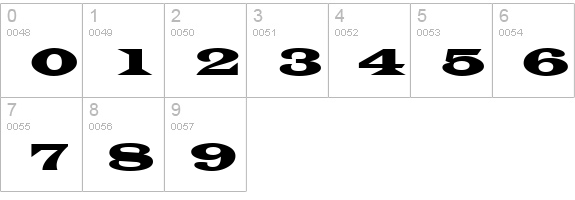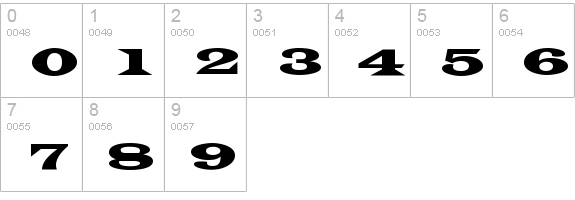
Evita Regular Font Details
Evita Regular is the standard, neutral variant in the Evita typeface family \xE2\x80\x94 well suited to general body text, paragraphs, and standard typographic work.
Evita Regular font is a versatile and elegant typeface that combines classic sophistication with a modern twist. Its clean lines and balanced proportions make it ideal for a wide range of design projects, from branding to editorial layouts. The timeless appeal of Evita Regular font ensures that your text will always look refined and polished. Best of all, this font is available for free download at FontsMarket.com, making it accessible to designers and creatives looking to elevate their work with a touch of timeless elegance. Add a touch of sophistication to your designs with Evita Regular font today!